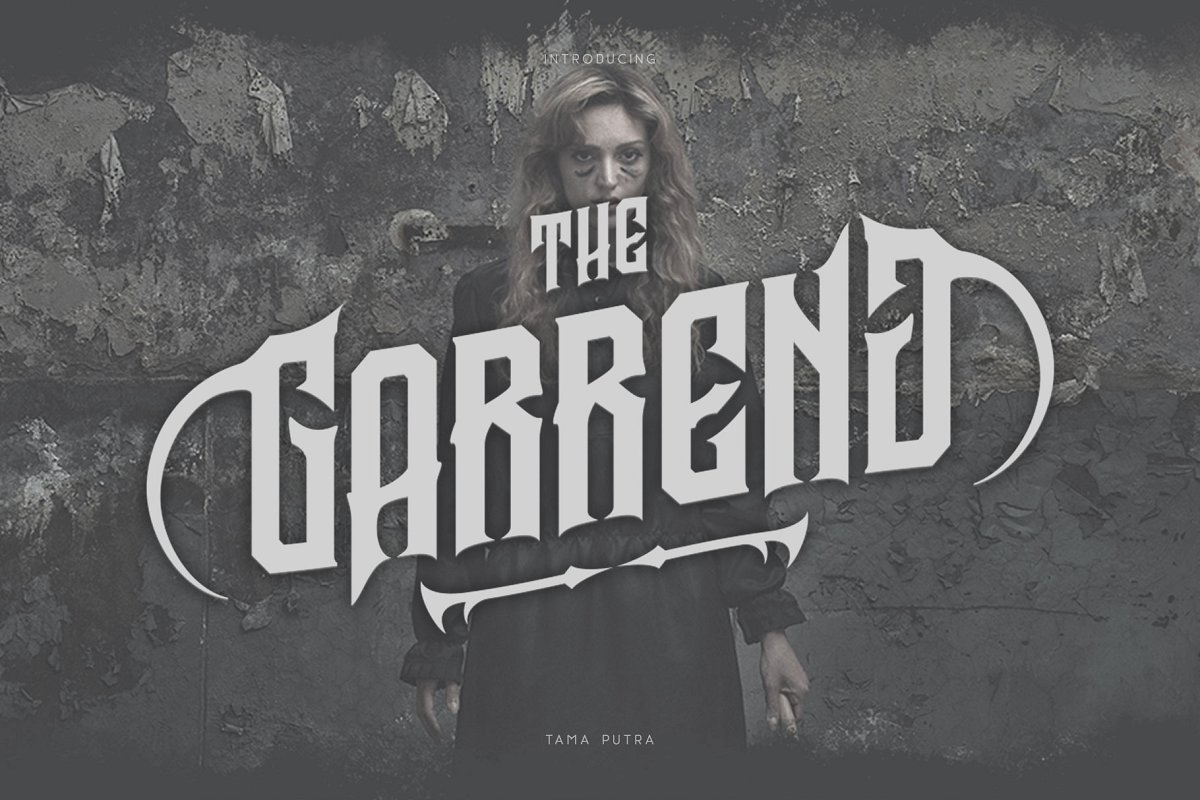
Garreng is a typeface inspired by the gothic style. Garreng typeface is a suitable font for creating beautiful things and much creative work. Garreng Font Family Free Download
It includes a full set of uppercase and lowercase letters as well as multi-lingual and currency support, numerals, punctuation, alternates, ligatures, and some extra glyphs.
Features :
- Character Set A-Z (Uppercase & Lowercase)
- Numerals & Punctuation
- Accents (Multilingual characters)
- Stylistic Alternates
- ss01, ss02, ss03, ss04, ss05, ss06, ss07, ss08, ss09